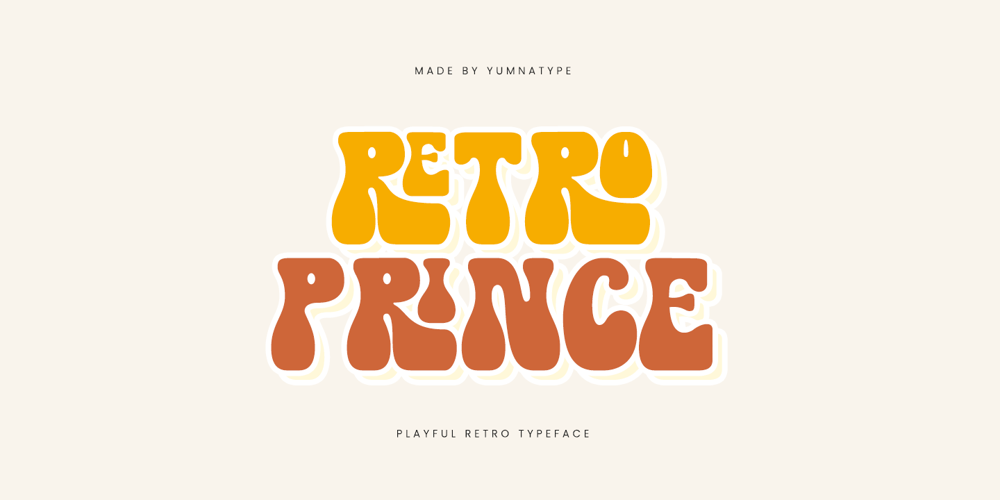
Retro Prince Font Family was designed by Donis Miftahudin and published by Yumna Type. Retro Prince contains 1 styles and family package options. Retro Prince is a charming display font that takes you on a journey back to the vibrant aesthetics of the retro era. Each letter in Retro Prince is meticulously designed with rounded shapes and uneven proportions, adding a dynamic quality to your text.The playful style of the font evokes the carefree spirit of the retro era, while the non-straight outlines add a sense of quirkiness and character to the overall design. What sets Retro Prince apart is its playful and unconventional design, which adds a sense of fun and spontaneity to your text. In addition, enjoy the features here.Features: Alternates Ligatures Multilingual Supports PUA Encoded Numerals and Punctuations Retro Prince fits in headlines, logos, posters, flyers, branding materials, print media, editorial layouts, and many more designs. Find out more ways to use this font by taking a look at the font preview.Thanks for purchasing our fonts. Hopefully, you have a great time using our font. Feel free to contact us anytime for further information or when you have trouble with the font. Thanks a lot and happy designing.